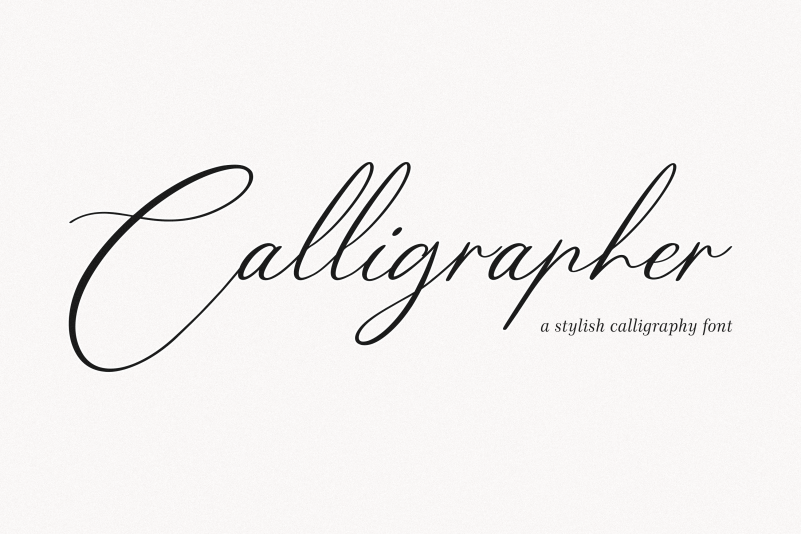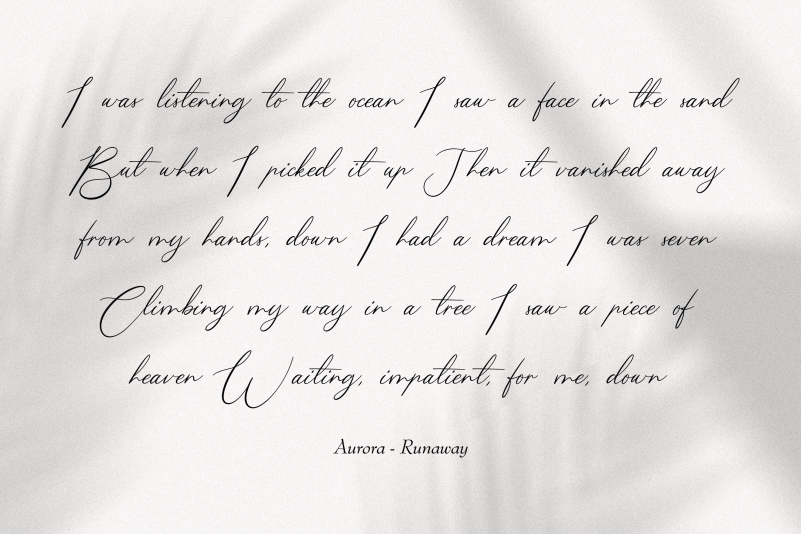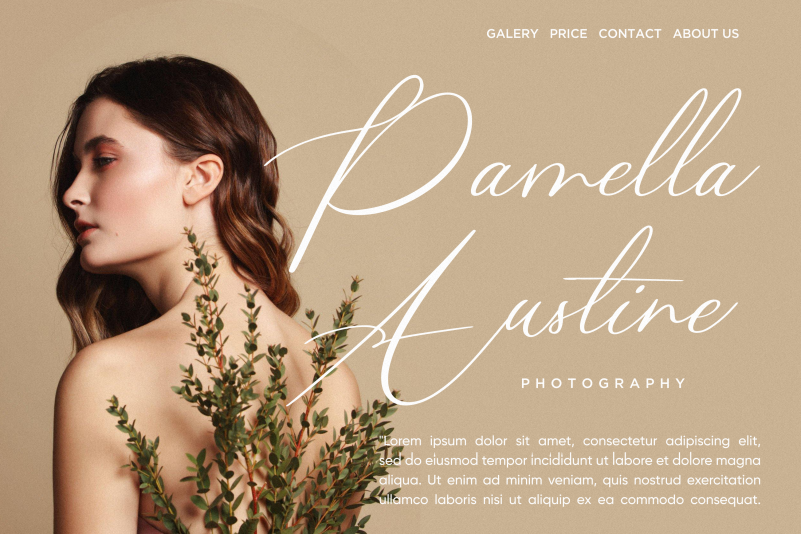
Calligrapher Typeface
Calligrapher Typeface is a magical script font carefully created with a touch of elegance. Whether you’re looking for fonts for Instagram or calligraphy scripts for DIY projects, this font will turn any creative idea into a true piece of art!